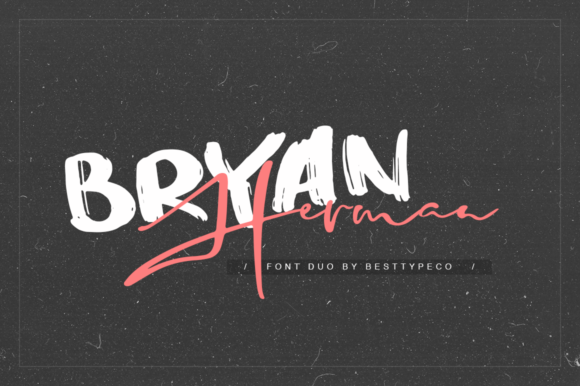
The Bryan Herman Font: A Fresh Take on Handmade Calligraphy
The Bryan Herman font is a fresh, handmade calligraphy font that’s perfect for a variety of design projects, including greeting cards, branding materials, business cards, quotes, posters, and more! Its unique, hand-crafted feel adds a touch of personality to any design.
- ✨ Fresh and modern handmade calligraphy feel
- ✅ Extensive OpenType features, including glyphs and stylistic alternates
- ✅ Perfect for a wide range of design projects, from formal to informal
While the Bryan Herman font is an excellent choice, there are a few things to keep in mind: 🤔
- ⚠️ Limited availability of condensed or expanded font variations
The Designer Inspiration Behind Bryan Herman
The Bryan Herman font was created with the intention of capturing the essence of handmade calligraphy. Its designer aimed to create a font that would feel fresh, modern, and approachable. The result is a beautiful, versatile font that’s perfect for a wide range of design projects.
Q: Is the Bryan Herman font suitable for body text?
A: While the Bryan Herman font is highly legible, it’s best suited for headlines, titles, and short paragraphs. For longer body text, a serif font might be more suitable.